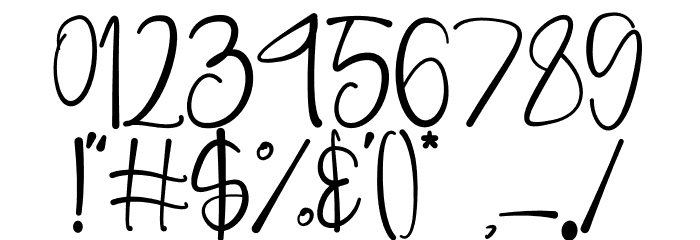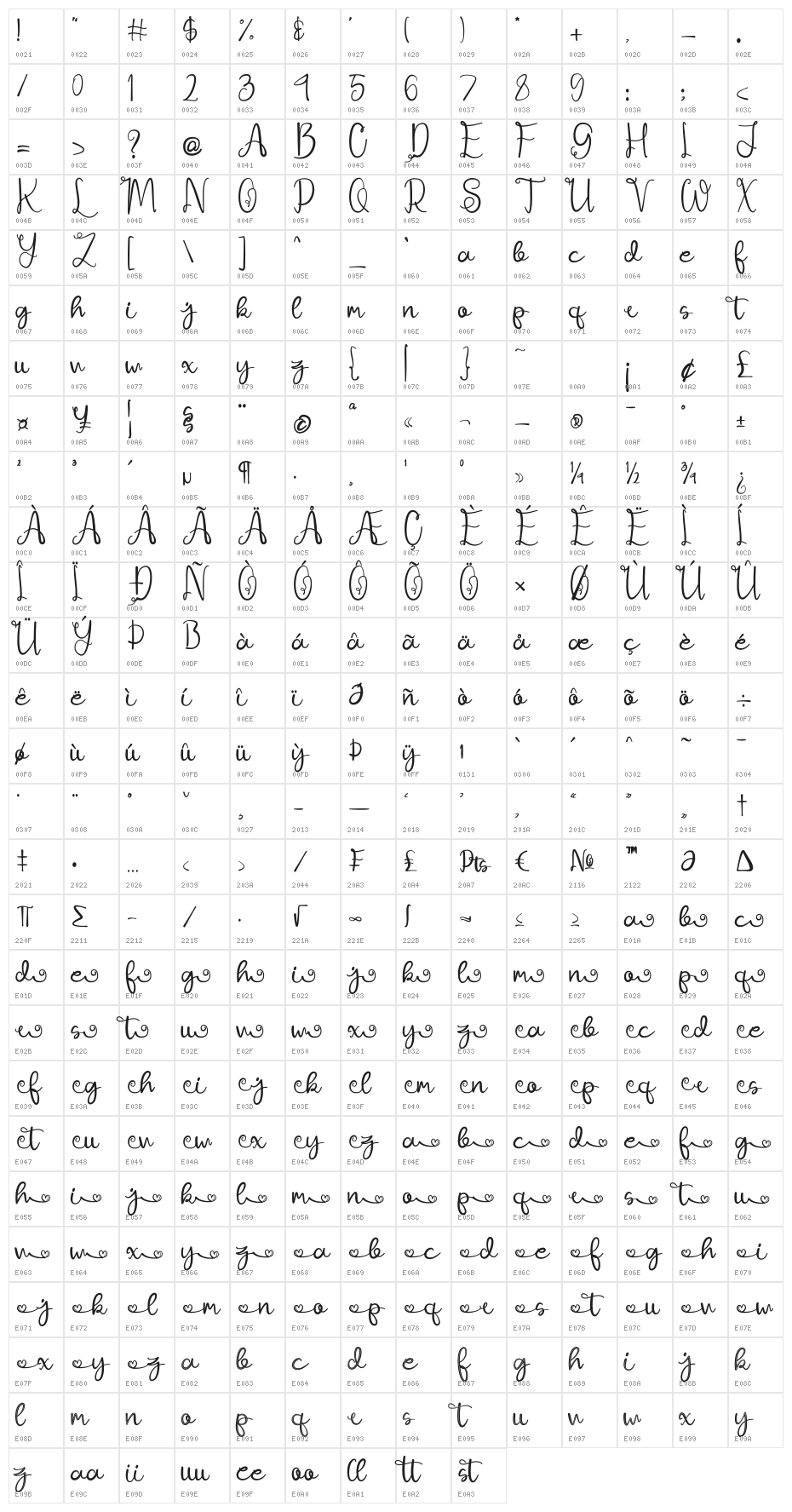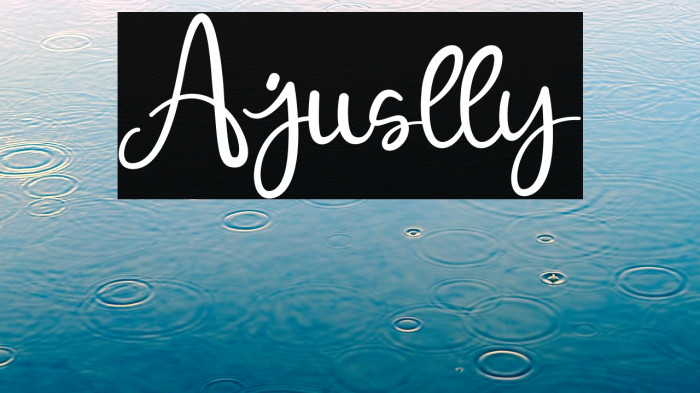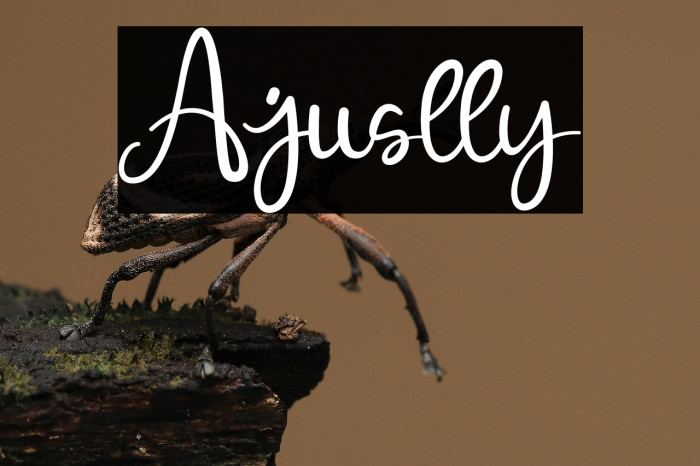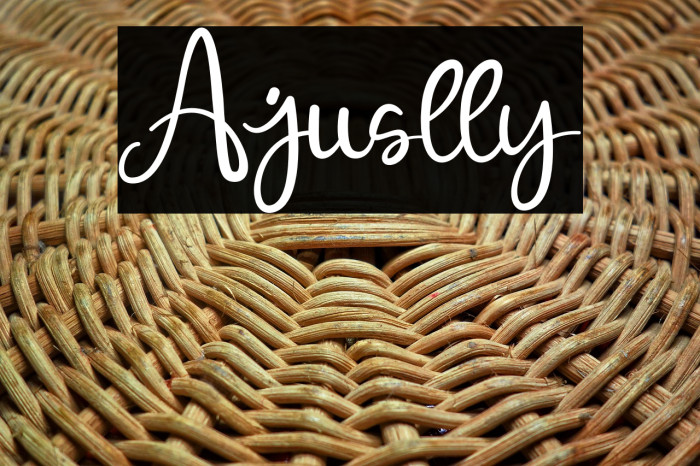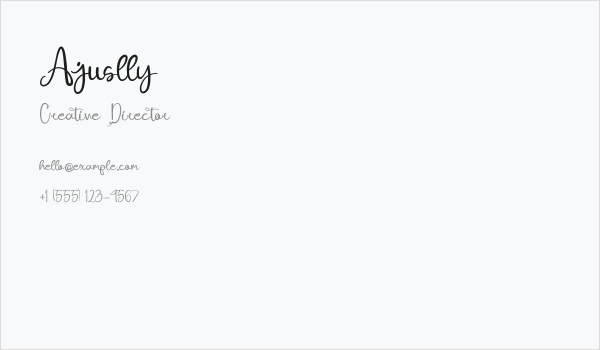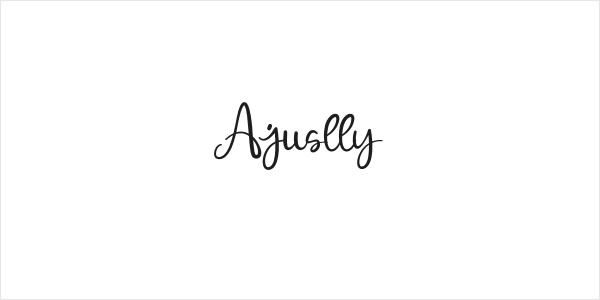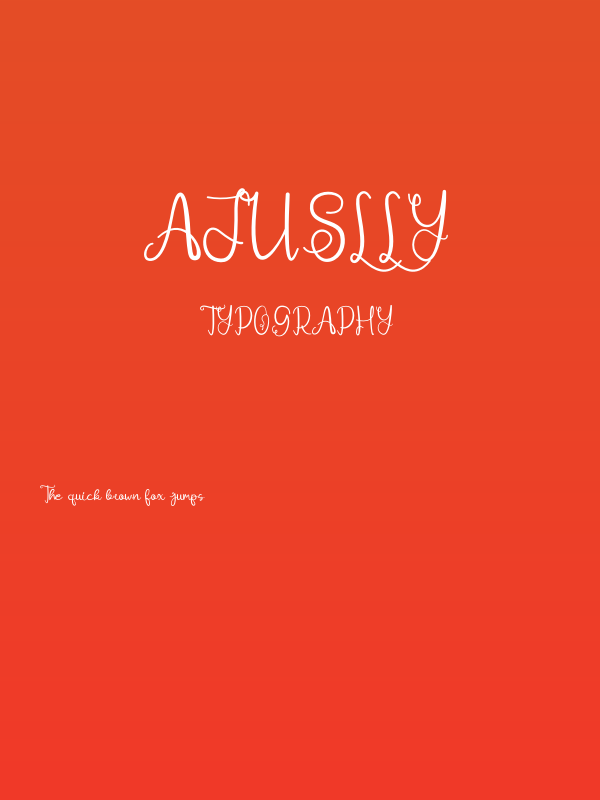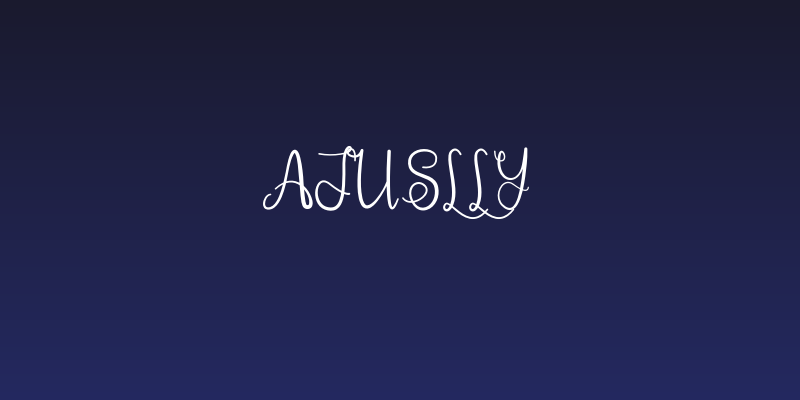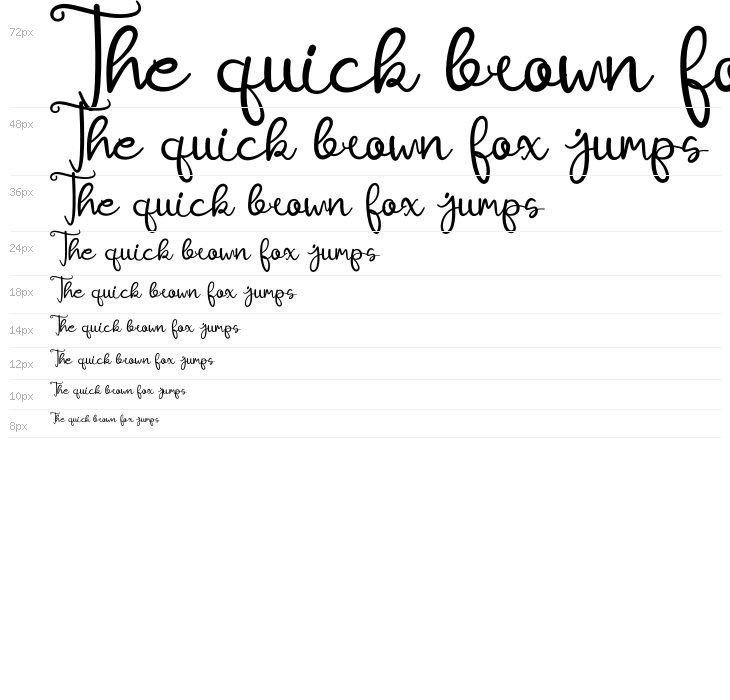
Ajuslly Font
Ajuslly Description
This font features a playful and whimsical script style, characterized by its flowing, curly lines and decorative loops. The uppercase letters are tall and elegant, with unique flourishes that add a touch of sophistication. The lowercase letters maintain a consistent style, with smooth curves and a slightly informal feel. Numbers and special characters are designed to match the overall aesthetic, making them suitable for creative and artistic projects. The font's distinct personality makes it ideal for use in invitations, greeting cards, and branding materials that require a personal and artistic touch.